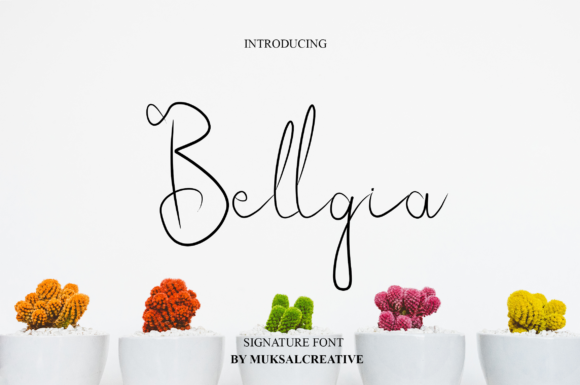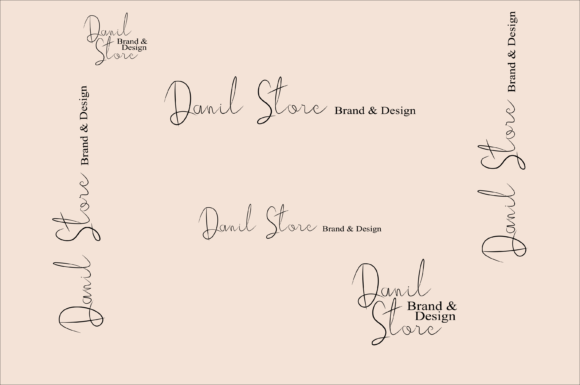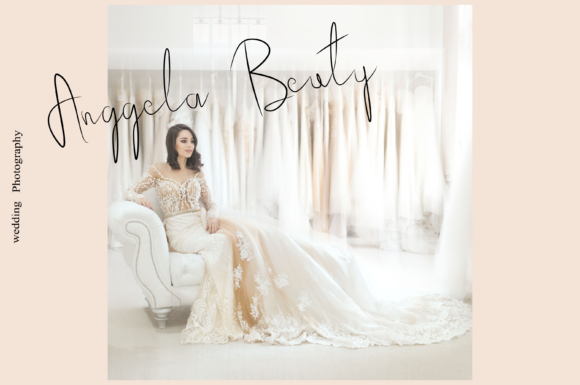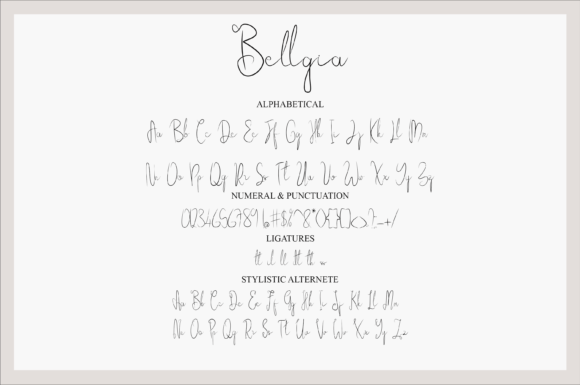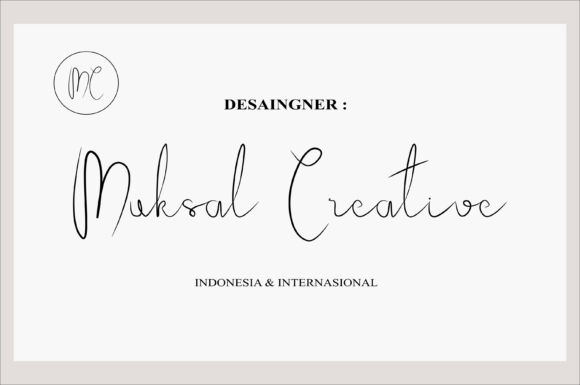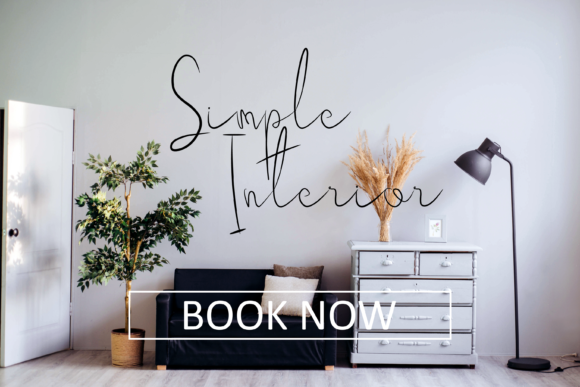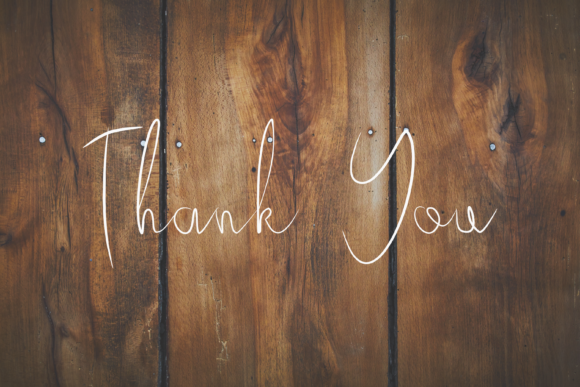
HomeScript FontsBellgia Font Script Fonts Bellgia Font FacebookXPinterestWhatsApp Bellgia Font Poster 2 Bellgia Font Poster 3 Bellgia Font Poster 4 Bellgia Font Poster 5 Bellgia Font Poster 6 Bellgia Font Poster 7 About Bellgia Font Bellgia is a beautiful and light handwritten font with an original style. Get inspired by its modern aesthetic. DOWNLOAD NOW People also explored White Hair Font Butter Handmade Font Zolinga Font Bubly Font Ghost Houses Font Betlyn Font Clairvoyant BB Uppr Font Supadupa Font 305 0 TagsBellgia Font Previous articleSilloute FontNext articleZillion Font LEAVE A REPLY Cancel reply Comment: Please enter your comment! Name:* Please enter your name here Email:* You have entered an incorrect email address! Please enter your email address here Website: Save my name, email, and website in this browser for the next time I comment. Personal Use Free Fillguy Font Personal Use Free Read more about this font Dealisya Personal Use Free Read more about this font Unlock Endless Creativity with the FREE September Clipart Huge Bundle (Valued at $700!) Personal Use Free Read more about this font Heart Personal Use Free Read more about this font BLOG Top 7 Google Fonts Alternatives for Faster and Privacy-Friendly Web Design (2025) Top 7 Google Fonts Alternatives for Faster and Privacy-Friendly Web Design (2025) When it comes to web typography, Google Fonts has long been the go-to... Best Fonts for T-Shirt Design – Top 2025 Picks Where to Buy American Fonts Online in 2024 Transform Your Website: Elevate Your Typography with 7 Best Web Font Generators